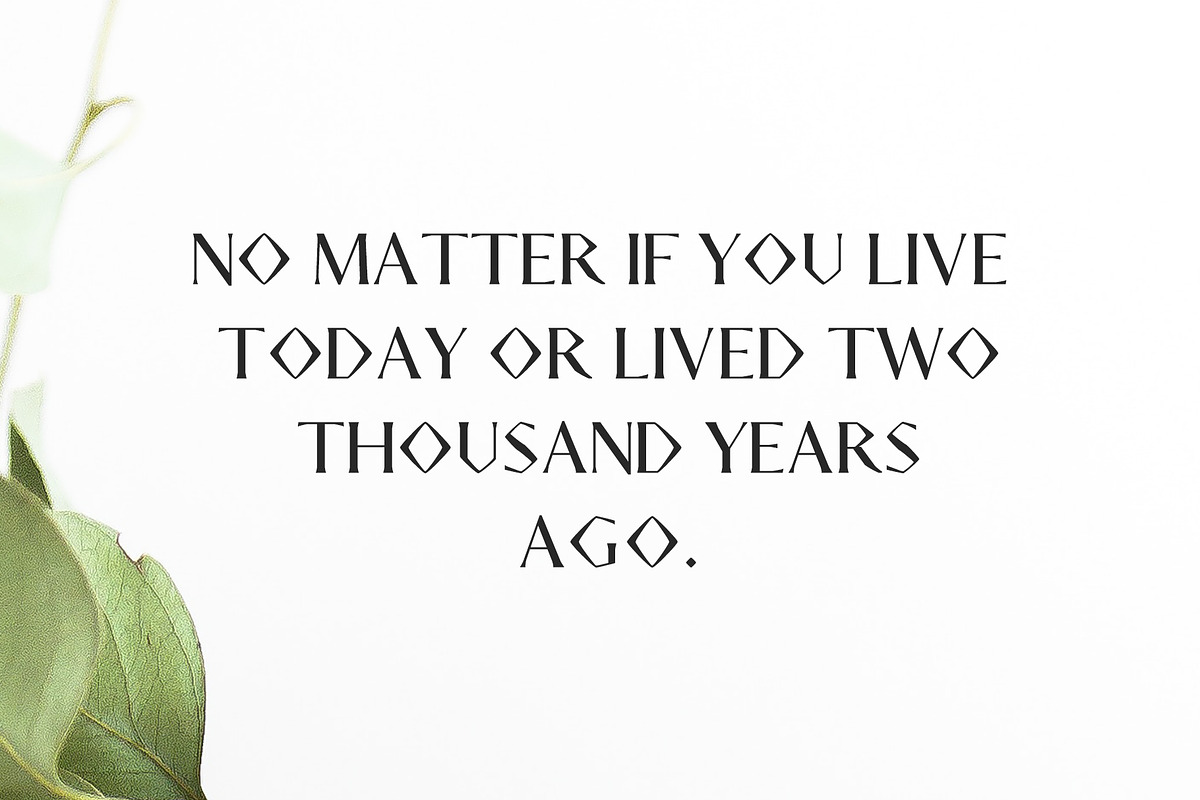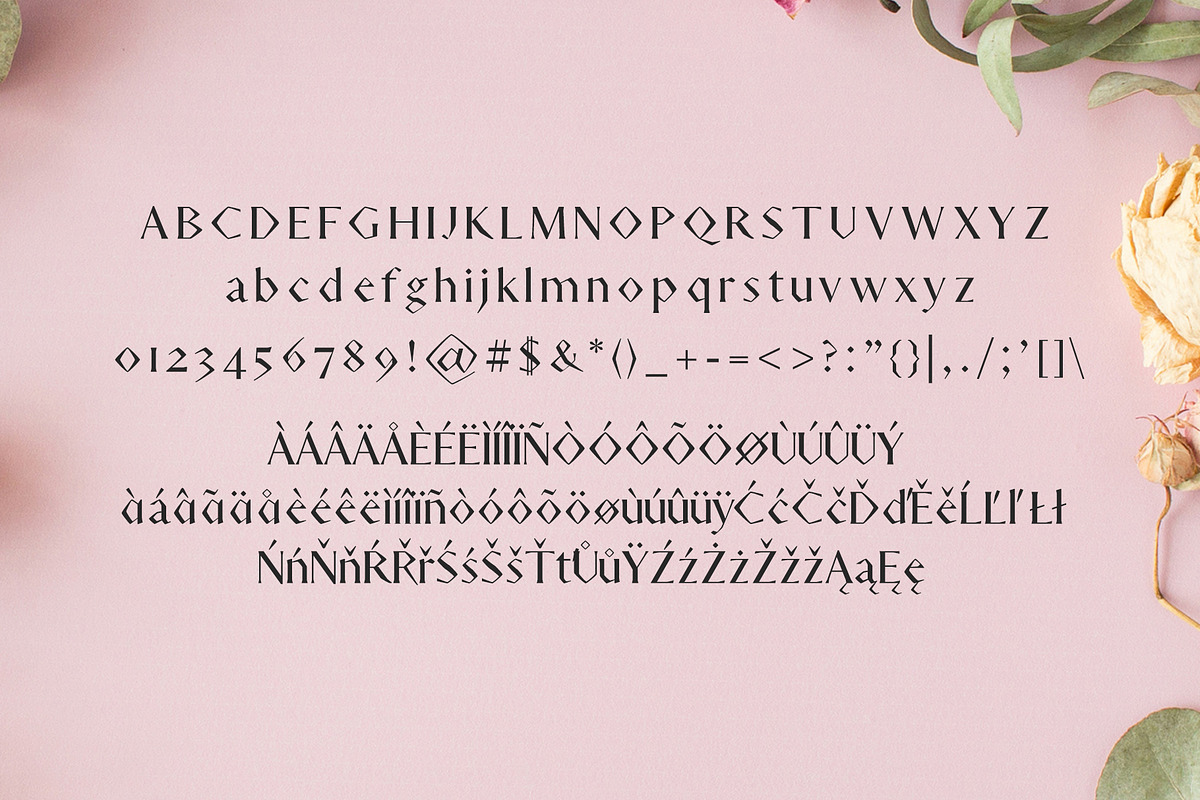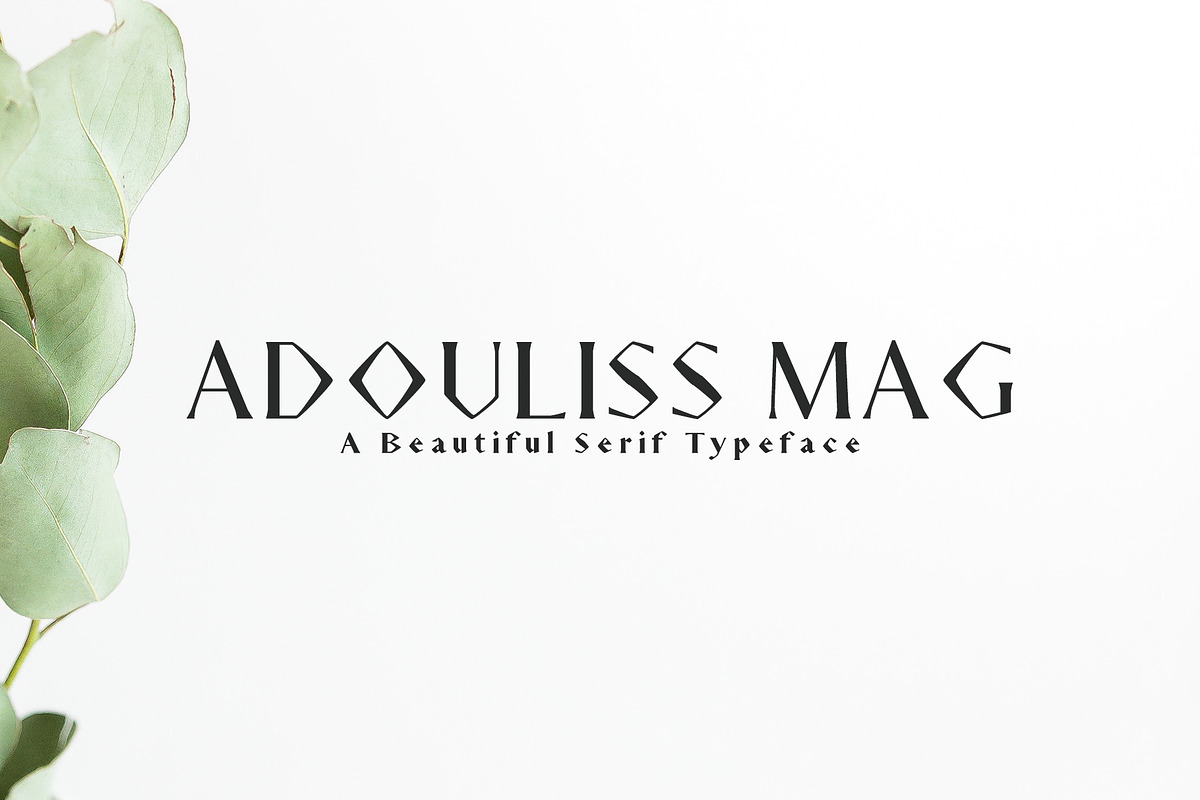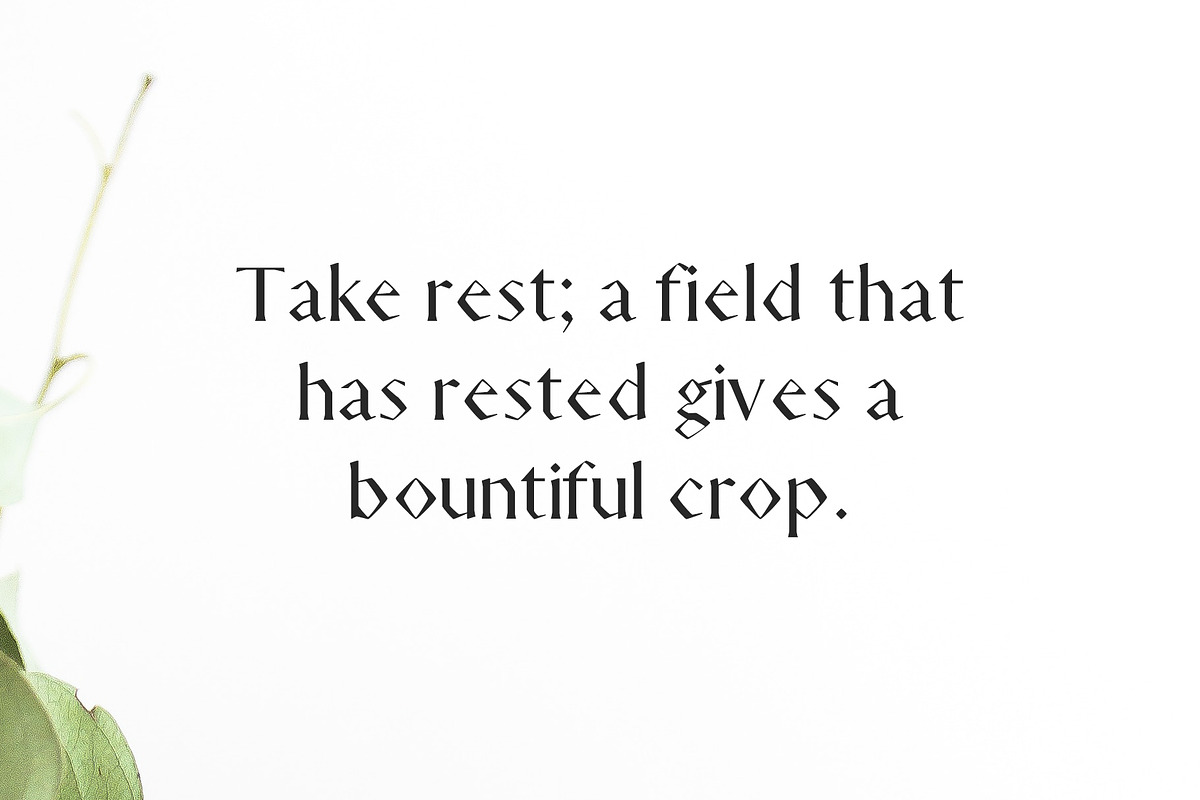
Adouliss Mag Serif 9 Font Family
Adouliss Mag Serif 9 Font Family by Creativetacos is a font selected for branding, posters, packaging, typography.
Why Adouliss Mag Serif 9 Font Family is worth a look
Adouliss Mag Serif 9 Font Family by Creativetacos fits naturally into Branding, posters, packaging, typography.